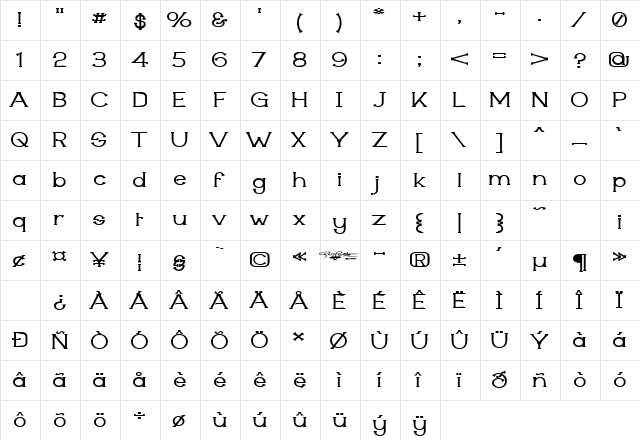
Technically Insane Widesemibold Regular
Design Context for Technically Insane Widesemibold Typeface
Technically Insane Widesemibold channels digital-age aesthetics through its sharp, structured letterforms — ideal for brands that want to signal innovation. Its bold stroke weight gives it real presence on the page.
Pro Tip: Use Technically Insane Widesemibold in combination with a neutral sans for body text. Let it define the brand voice in headlines while keeping reading comfortable elsewhere.